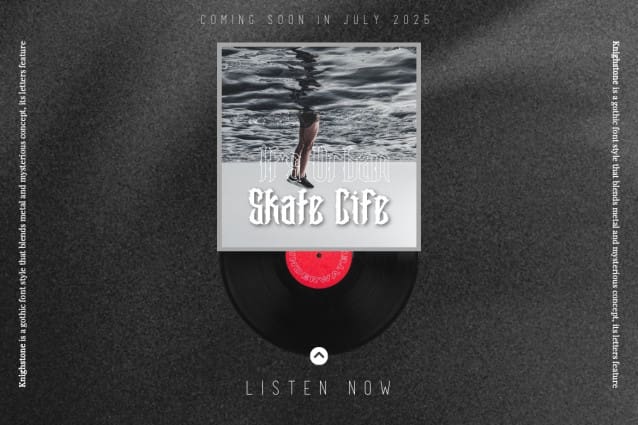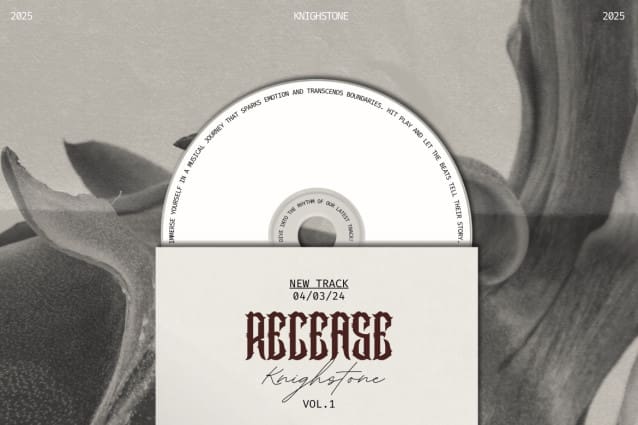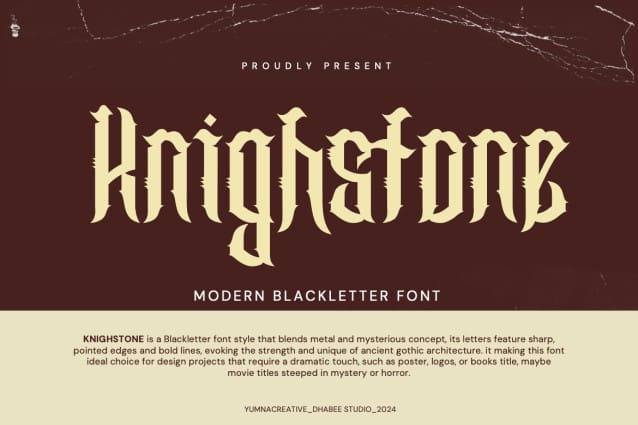
Knighstone Blackletter Font
Knighstone Blackletter Font. This Font is a delicate, elegant and flowing handwritten font. It has beautiful and well as a unique blend of ligatures a letter, so that the authors compose it with a and little swirly embedding, so that a modern font is formed and ready to make a statement by adding elegant and unique flair to your next design project. Add it to your most creative ideas and notice how it makes them come alive!